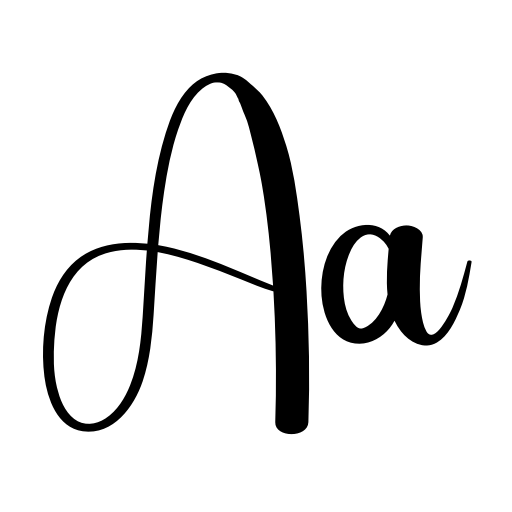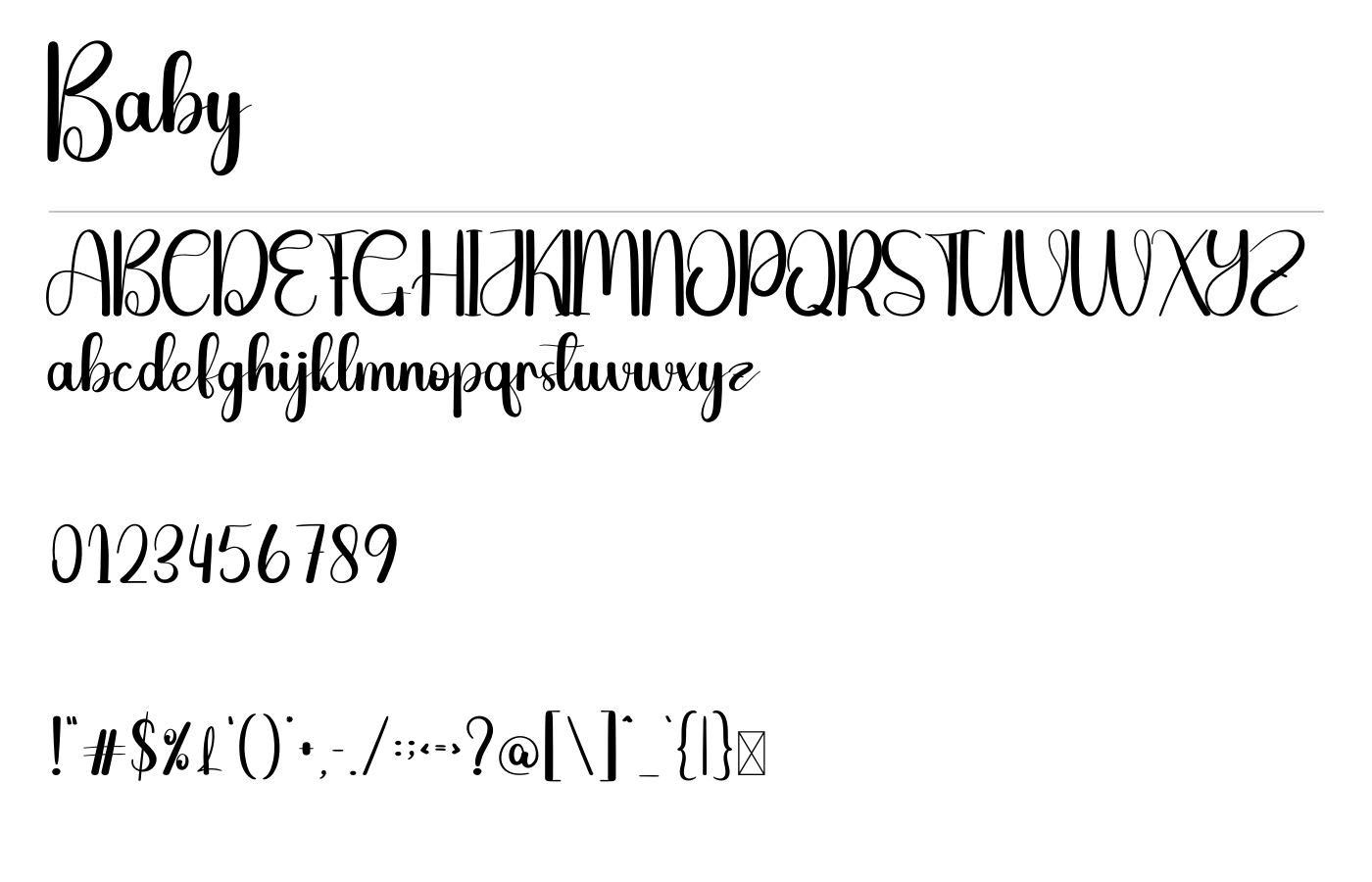
Baby Font is a playful and elegant script typeface with a tall, narrow structure and fluid, hand-drawn strokes. It features high contrast with thin, delicate lines and whimsical loops, making it perfect for charming branding, invitations, and creative headlines. This font exudes a friendly and artistic vibe, ideal for designs that want to feel personal and stylish.
Baby Font